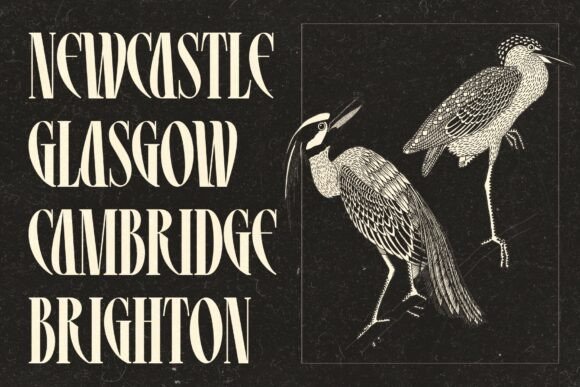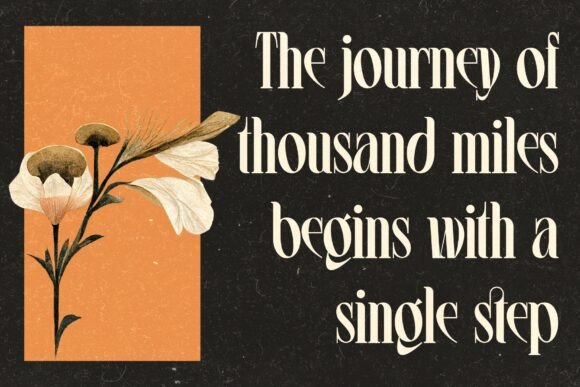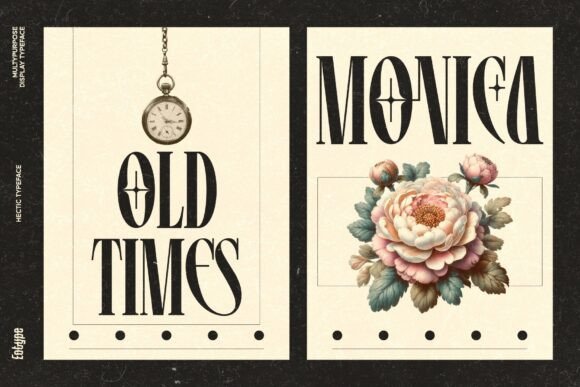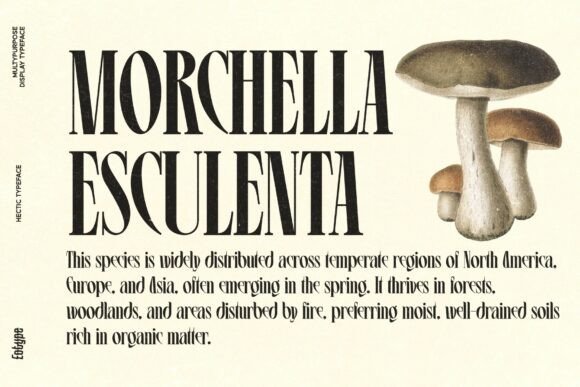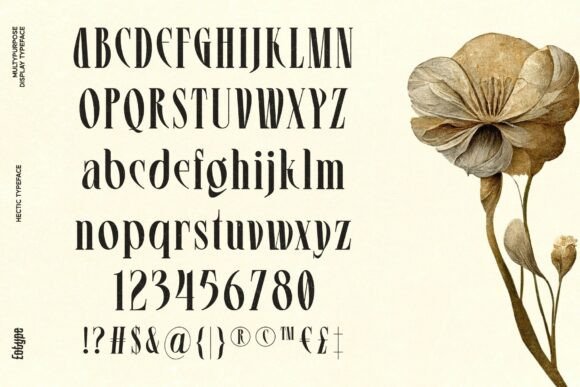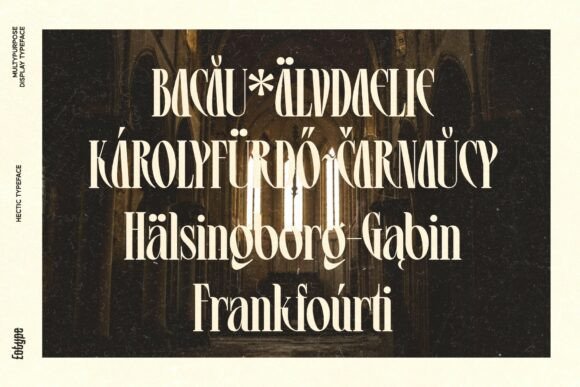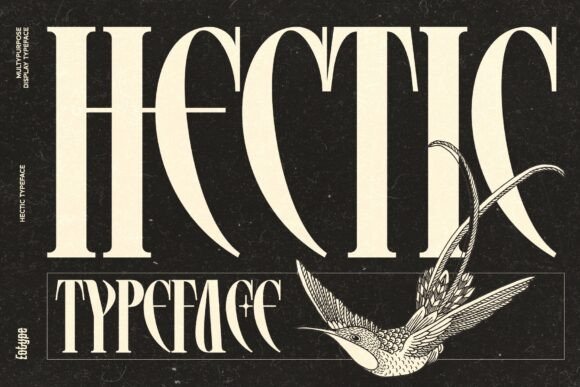
Introducing Hectic Font: The Epitome of Modern Elegance with a Razor-Sharp Edge
In the realm of typography, a font can make or break the visual identity of a design project. For those seeking a typeface that exudes both timeless sophistication and a daring, contemporary flair, Hectic Font is the ultimate solution. This multipurpose display typeface is engineered to command attention, merging the structured elegance of classic high-contrast serifs with the bold, avant-garde curves that define modern luxury.
The Design Philosophy Behind Hectic
Hectic’s design is a deliberate fusion of contrasting elements, creating a font that is at once authoritative and daring. By combining the refined, high-contrast features of traditional serif fonts with aggressive, avant-garde curves, Hectic achieves a unique balance. This balance ensures that designs feel both eternally classy and refreshingly modern, making Hectic the perfect choice for designers who wish to push the boundaries of conventional typography.
Distinctive Features of Hectic Font
One of the most striking aspects of Hectic Font is its stunningly long, tapered descenders. These elements not only add a touch of drama and elegance to any text but also contribute to the font’s distinctive readability. Coupled with the unique, crescent-like terminals that evoke the fluid motion of a hummingbird’s flight, Hectic’s design ensures that any project stands out with unparalleled sophistication.
Ideal Applications for Hectic Font
Given its versatile and luxurious aesthetic, Hectic Font finds its application in a variety of design projects. Here are some of the ideal uses for this remarkable typeface:
• High-Fashion Editorial Layouts: Bring a touch of high-end glamour to fashion magazines, editorials, and publications with Hectic’s elegant and commanding presence.
• Avant-Garde Branding: For brands looking to make a bold statement and differentiate themselves from the competition, Hectic offers a fresh and daring typographic solution.
• Luxury Packaging: Elevate luxury product packaging with a font that communicates opulence, sophistication, and a cutting-edge design sensibility.
• Cinematic Title Sequences: Make a lasting impression with movie titles, trailers, or opening credits that demand attention and convey a sense of drama and grandeur.
Why Choose Hectic Font?
In a market saturated with generic and bland typefaces, Hectic Font offers a refreshing alternative. Here are a few reasons why designers and crafters should consider Hectic for their next project:
• Unique Aesthetic: Hectic’s blend of classic elegance and modern aggression ensures that your designs stand out in a crowded marketplace.
• Versatility: Suitable for a wide range of applications, from digital media to print, Hectic adapts effortlessly to various design needs.
• High-Impact Readability: Despite its decorative nature, Hectic maintains high readability, making it perfect for titles, headings, and short texts where visual impact is crucial.
Hectic Font is more than just a typeface; it’s a design statement. For those looking to inject their projects with a dose of high-voltage style and make a lasting impression, Hectic is the ultimate choice. Its unique blend of timeless elegance and razor-sharp edge ensures that designs not only look contemporary but also exude a sense of luxury and sophistication. Whether you’re working on high-fashion editorials, avant-garde branding, luxury packaging, or cinematic titles, Hectic Font is poised to redefine the boundaries of modern typography.